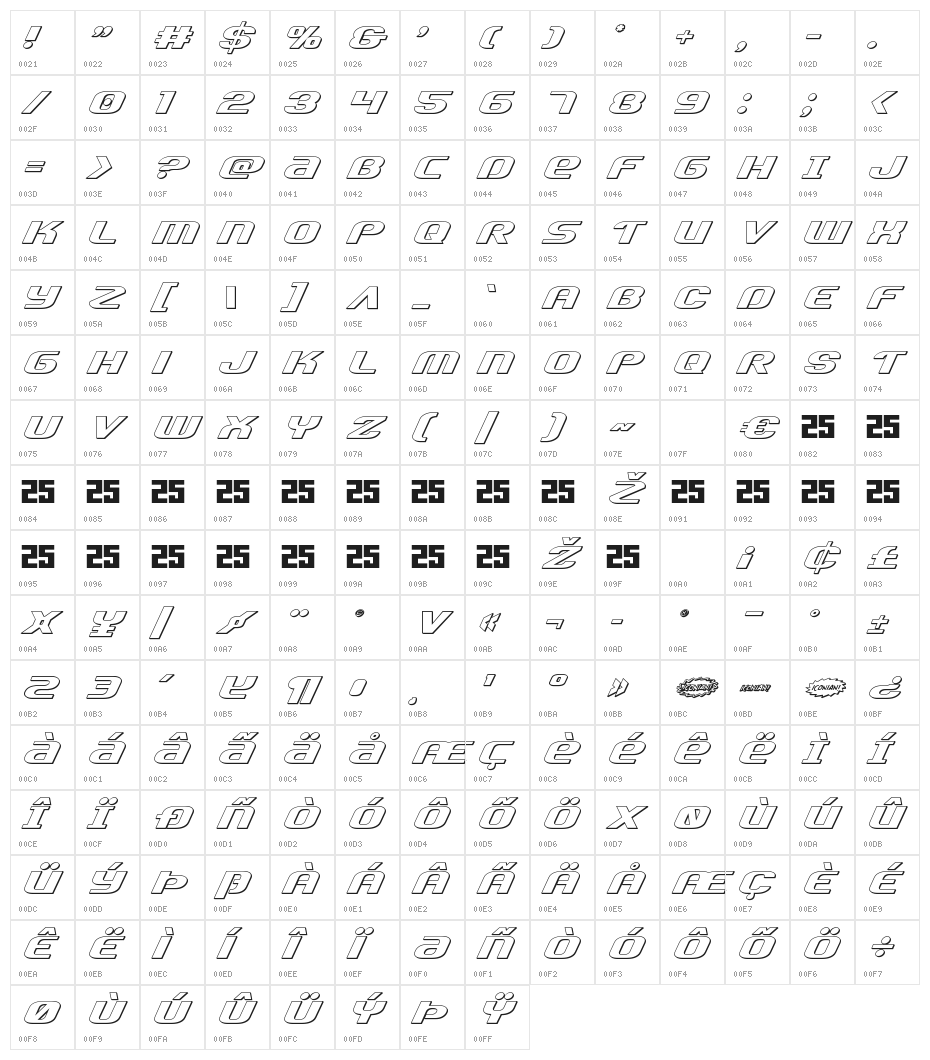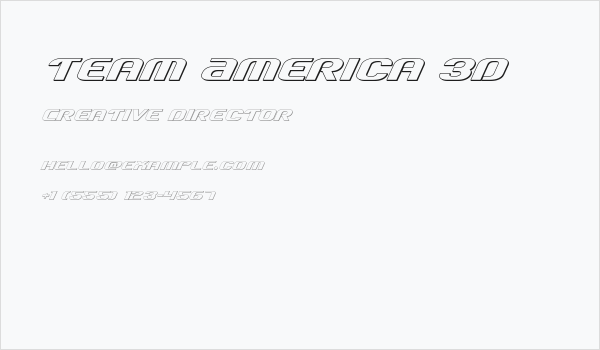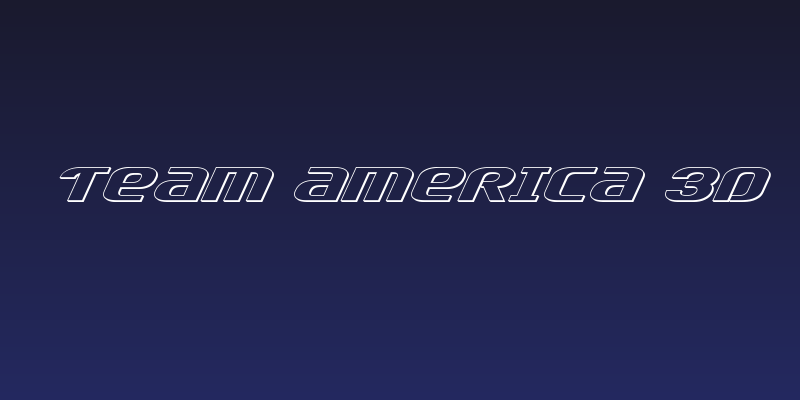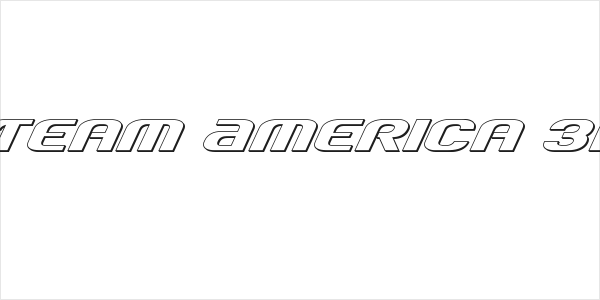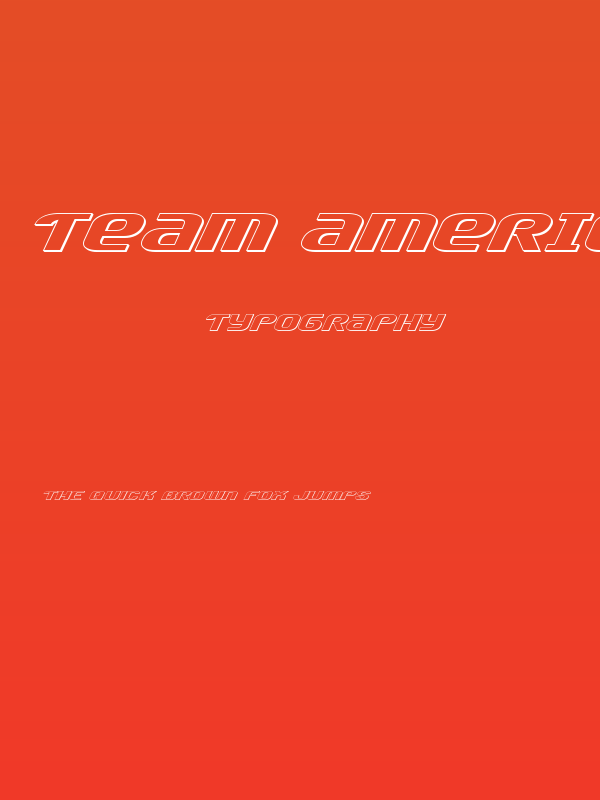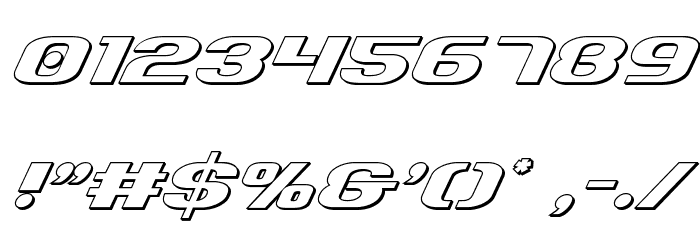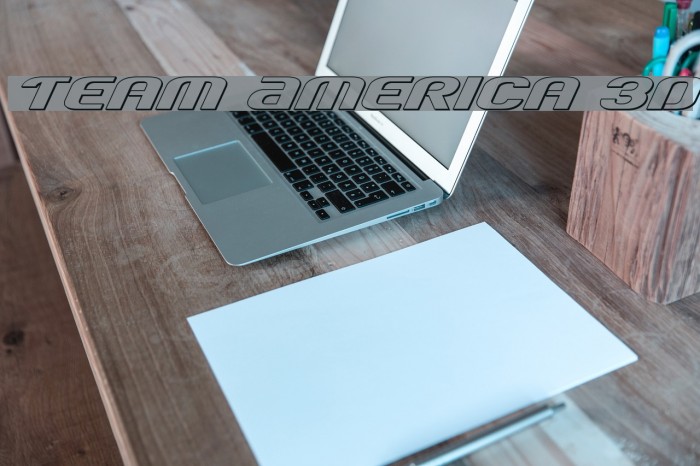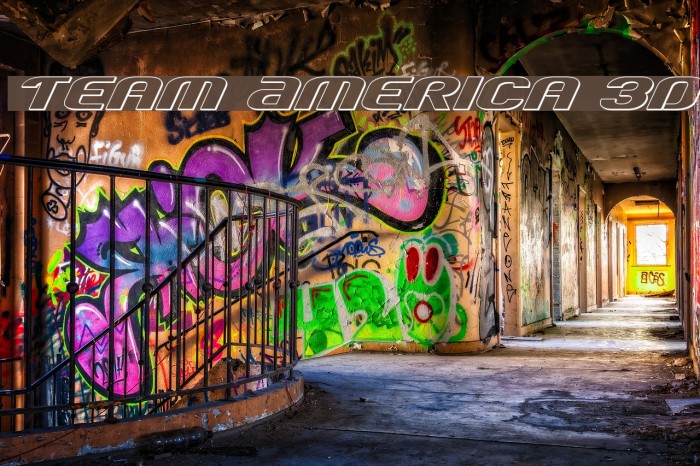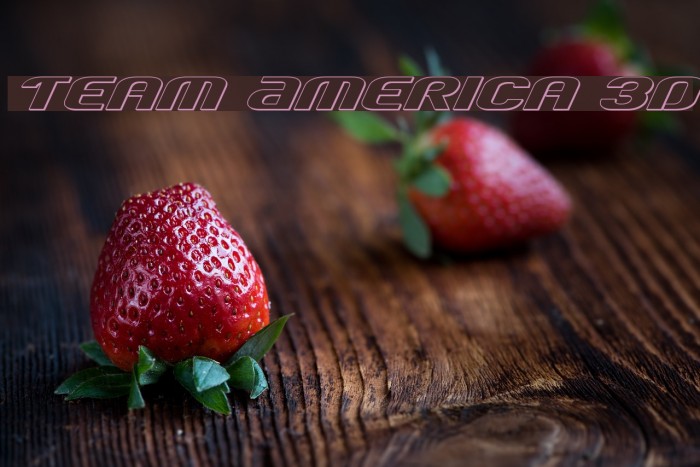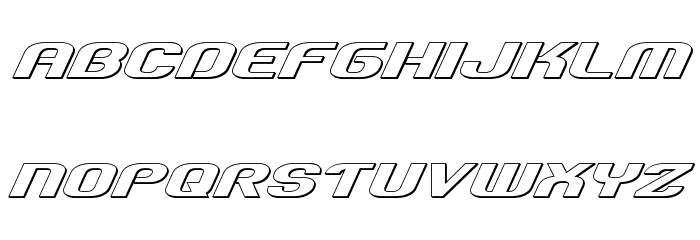
Team America 3D Font
Team America 3D Description
This font features a bold, futuristic design with a 3D effect that gives it a dynamic and modern appearance. The characters are outlined, creating a sense of depth and movement. The uppercase and lowercase letters maintain a consistent style, with sharp angles and clean lines that enhance readability while adding a unique flair. The numbers and special characters follow the same design principles, ensuring a cohesive look across all elements. This font is ideal for projects that require a strong, impactful visual presence.
| Proposed Projects | Ideal for branding, posters, video game titles, and any project needing a modern, impactful typeface. |